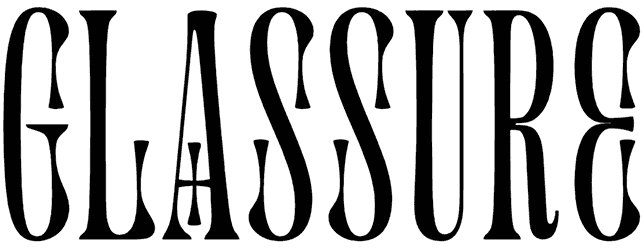
Glassure Font
The windows were prone to shaking, and the font was created. Glassure font by light vibrations, afterward, serious vibrations have achieved a kind of ornateness. Thanks to the enthralling design, it is superb for cosmetics.
It is classified in wavy fonts and provides two styles of uppercase letters, but lowercase letters have not been prepared. Your sign, brand, and packaging will experience a stunning style. Even this Art Nouveau font can be marvelous as a logo on water bottles.
Glassure is an experimental typeface that is inspired by every pull and curl in the process of making glass sculptures, weird yet beautiful marble pattern, and a little touch of art nouveau and vintage style. Combine the uppercases, lowercases and other feature to get the look that you want. There is a unique feature in this typeface that allows you to make two-letters block just by selecting an even number of letters and activating the ‘titling alternates’ in the software you are using.